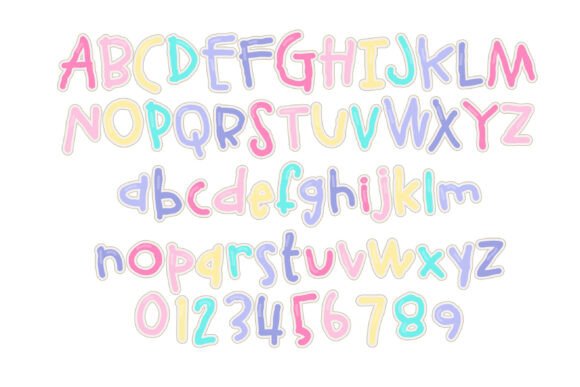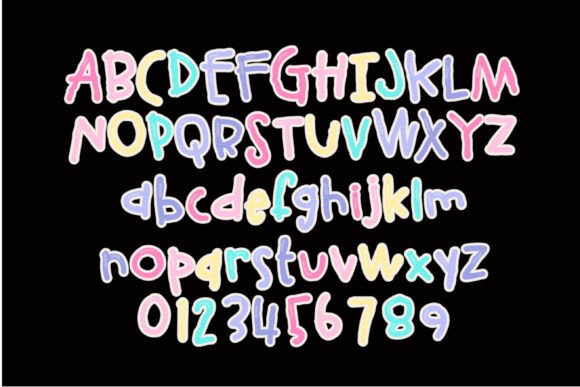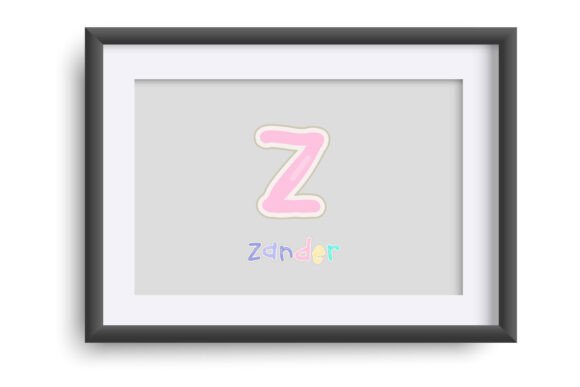
Capture the carefree energy of the classroom with Kindergarten Kandy, a bouncy, hand-drawn full-color SVG font.
This typeface features “marker-style” letterforms with a soft, glowing outline and a dreamy palette of lemon, lavender, and mint With its “creative-playtime” soul and approachable rhythm, Kindergarten Kandy is the premier choice for independent teacher resources, vibrant classroom decor, boutique children’s apparel labels, and engaging “family-life” digital headers.